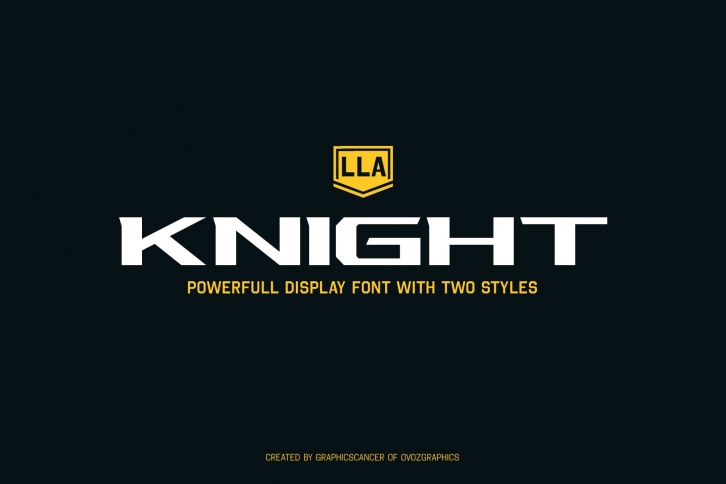
LLA Knight Sport Display Font, is our new item that suitable for your team logo, or community logo.
Great for Logo, Sticker, Jersey, Invitation Card, Brochure, etc.